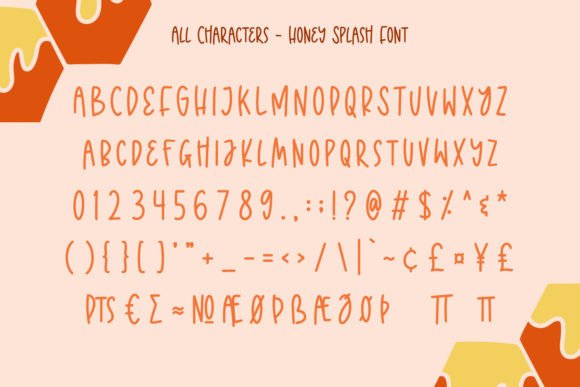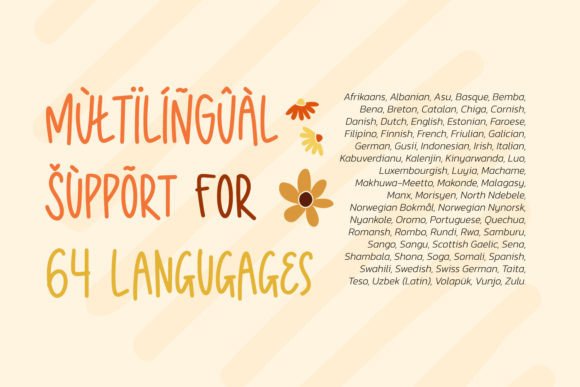
Honey Splash Font
Honey Splash is a cheerful and cute handwritten display font ready to take your designs to the next level. Add it to your creative ideas and enjoy the results!